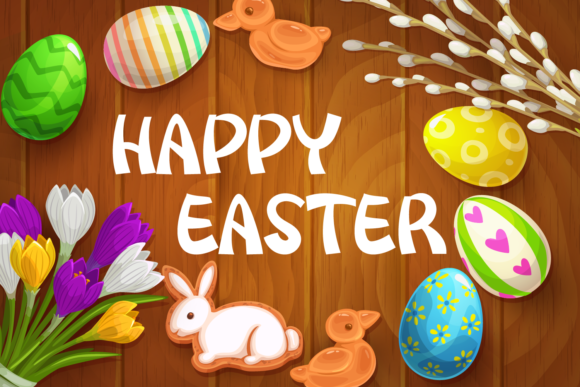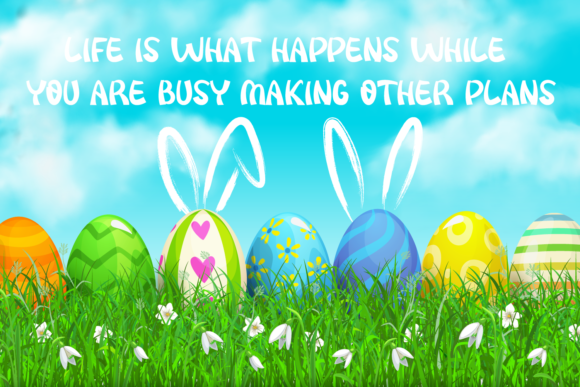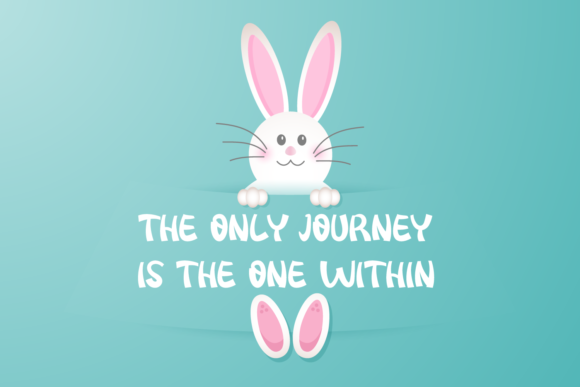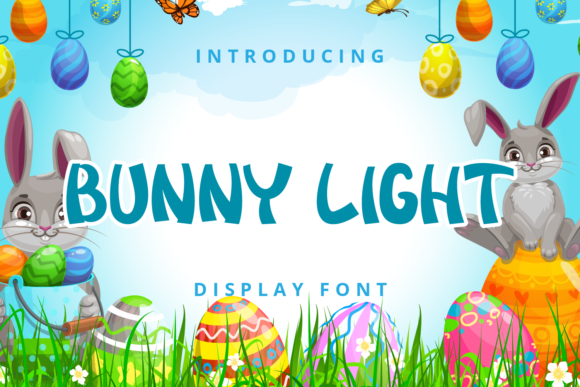
Introduction to Bunny Light Font
Bunny Light is a whimsical display font with a relaxed theme, featuring a lovely style.
No matter the topic, this font will be an incredibly asset to your fonts’ library, as it has the potential to elevate any creation .